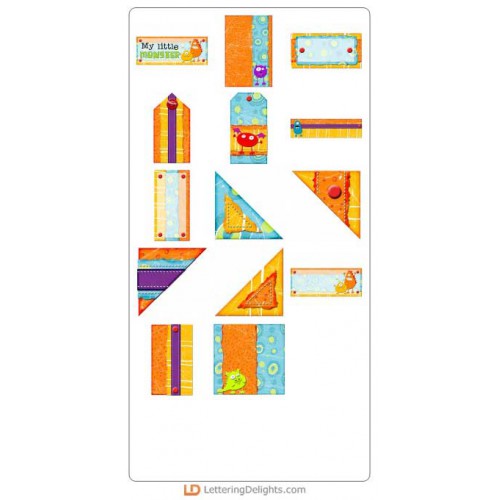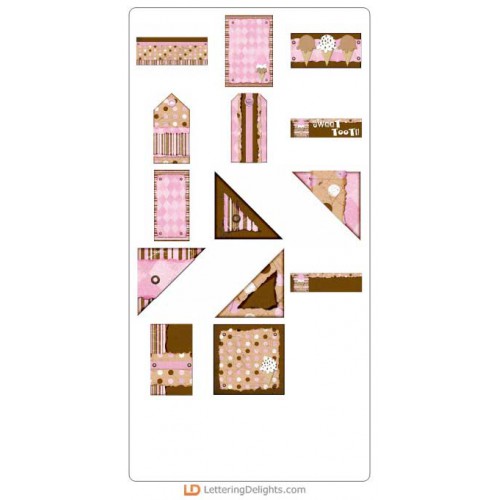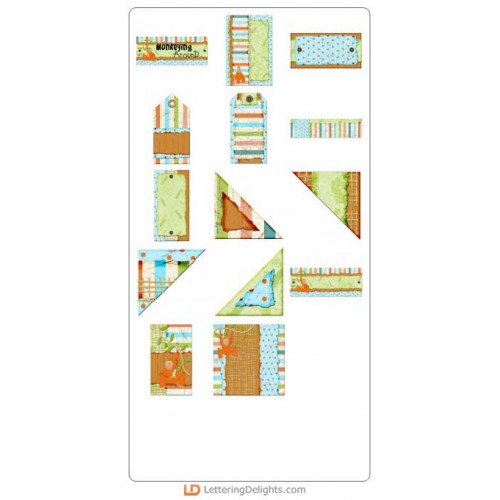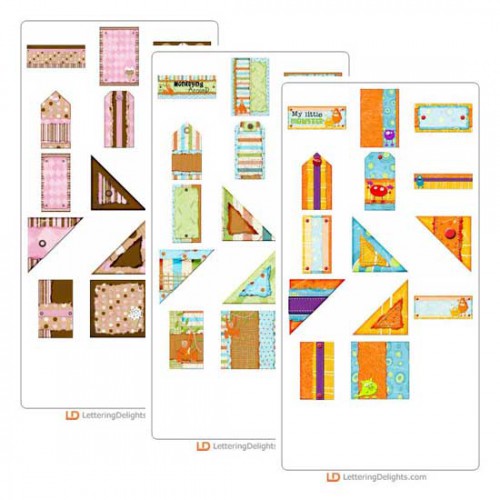
MNO Bundle
Loveable Monsters, the cool colors of Neapolitan and furry, funny Orangutans make up the MNO bundle in our alphabet series of bundles. Scoop up these fun alphabets and their matching Journaling Delights sets for only $10. Save over 40%.